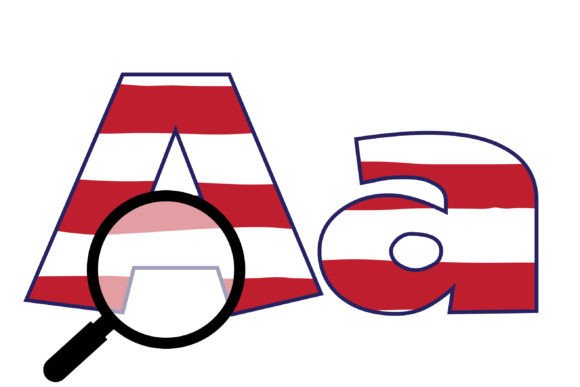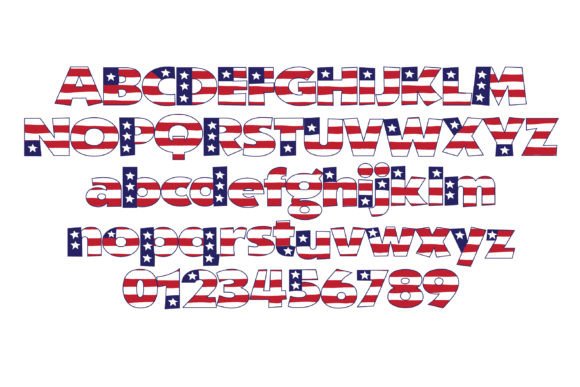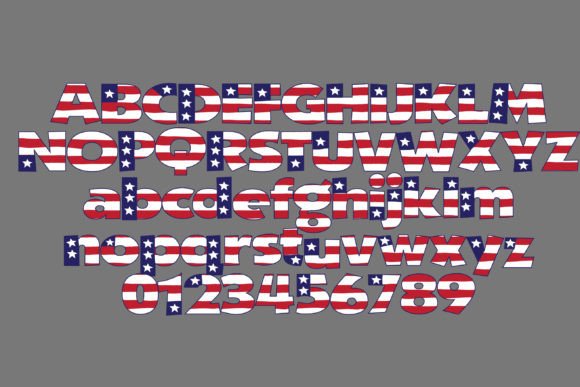
Introduction to Red, White, and Blue Font
This full-color font features a bulky sans serif font in a patriotic color palette.
There is an alt case w/ additional colors you can access through your system or Silhouette’s glyph map This font works best for titles, displays, posters and more.